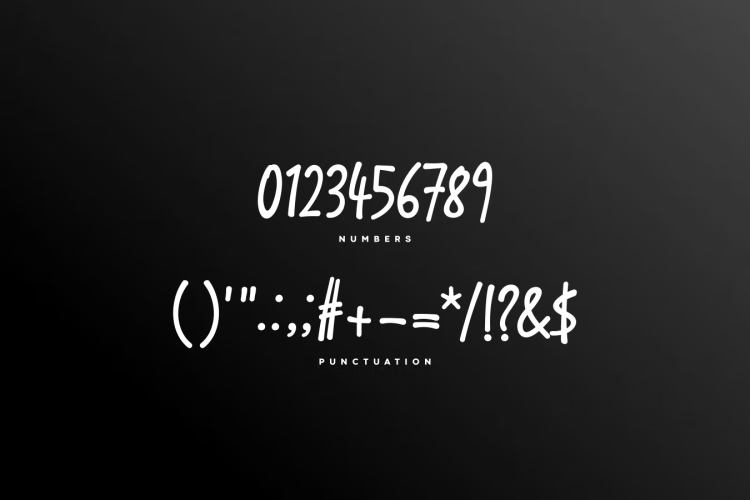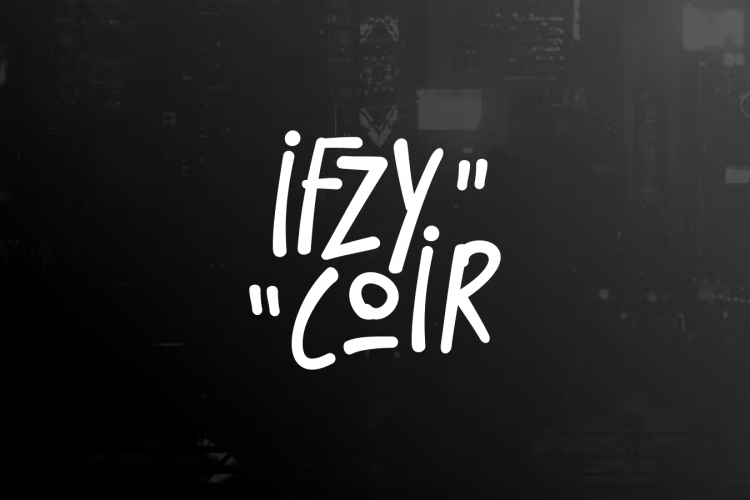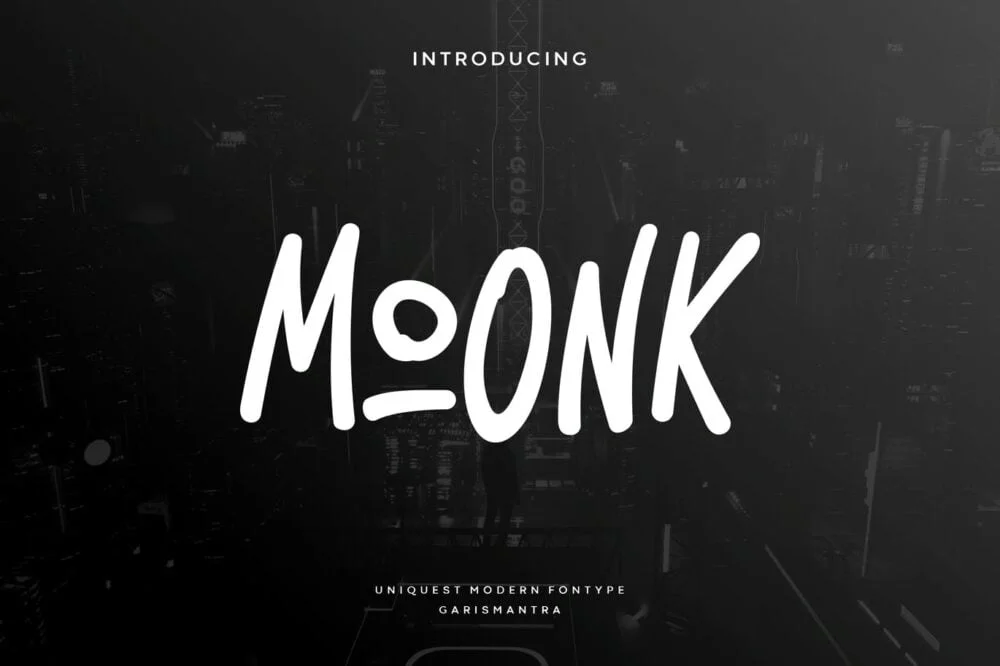
Moonk Font
Moonk Font is a handwritten font that is all caps but has a slight accent on the lower case which is dynamic on some of the letters. This will give a very modern feel bu…
Moonk Font is a handwritten font that is all caps but has a slight accent on the lower case which is dynamic on some of the letters. This will give a very modern feel but a little unique in its placement, this font is suitable for titles, website descriptions, or various other types of designs. Grab it right away, and use this font for your new look.
Where Moonk Font works best
Moonk Font brings a personal, handwritten warmth to invitations, menus and place cards.
Craft brands — coffee, cosmetics, bakery — use scripts like Moonk Font for signature-style logos and labels.
Pair Moonk Font with a plain sans for quotes, stories and Pinterest pins that feel handmade.
Moonk Font is a Script And Handwritten typeface tagged Handwritten, Modern, Script, Script And Handwritten. It works well for headlines, logos, posters, social media graphics and branding projects that need a distinctive script and handwritten look.